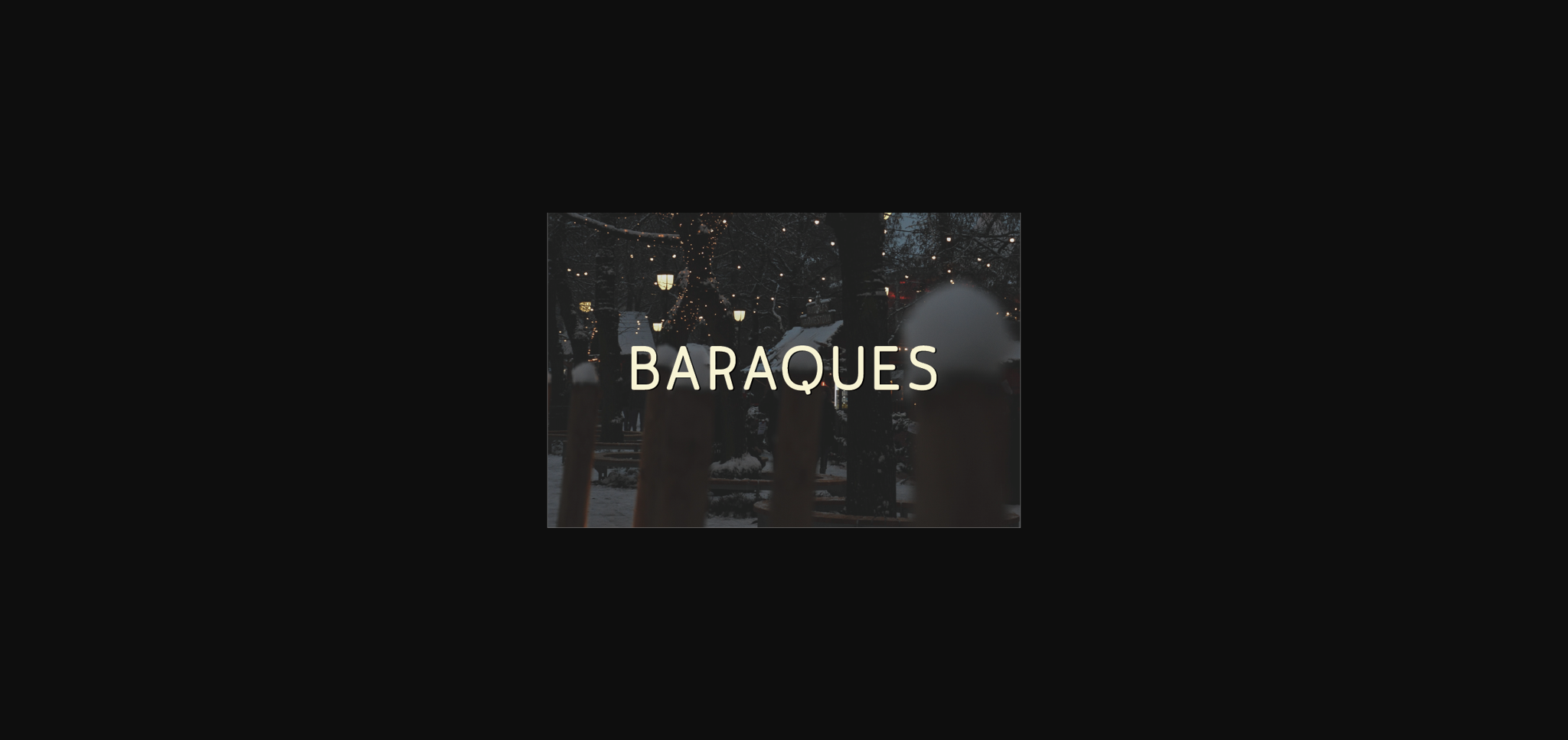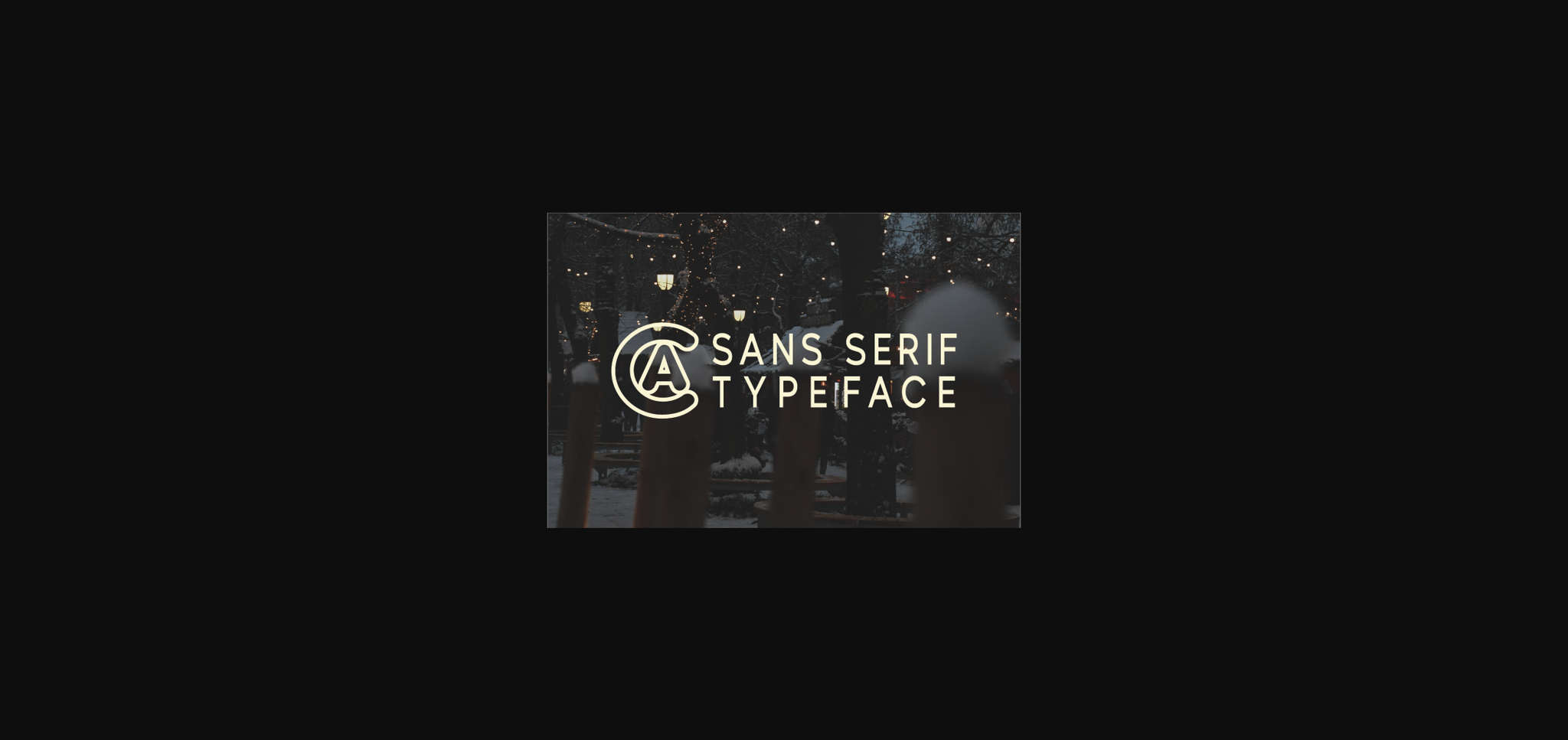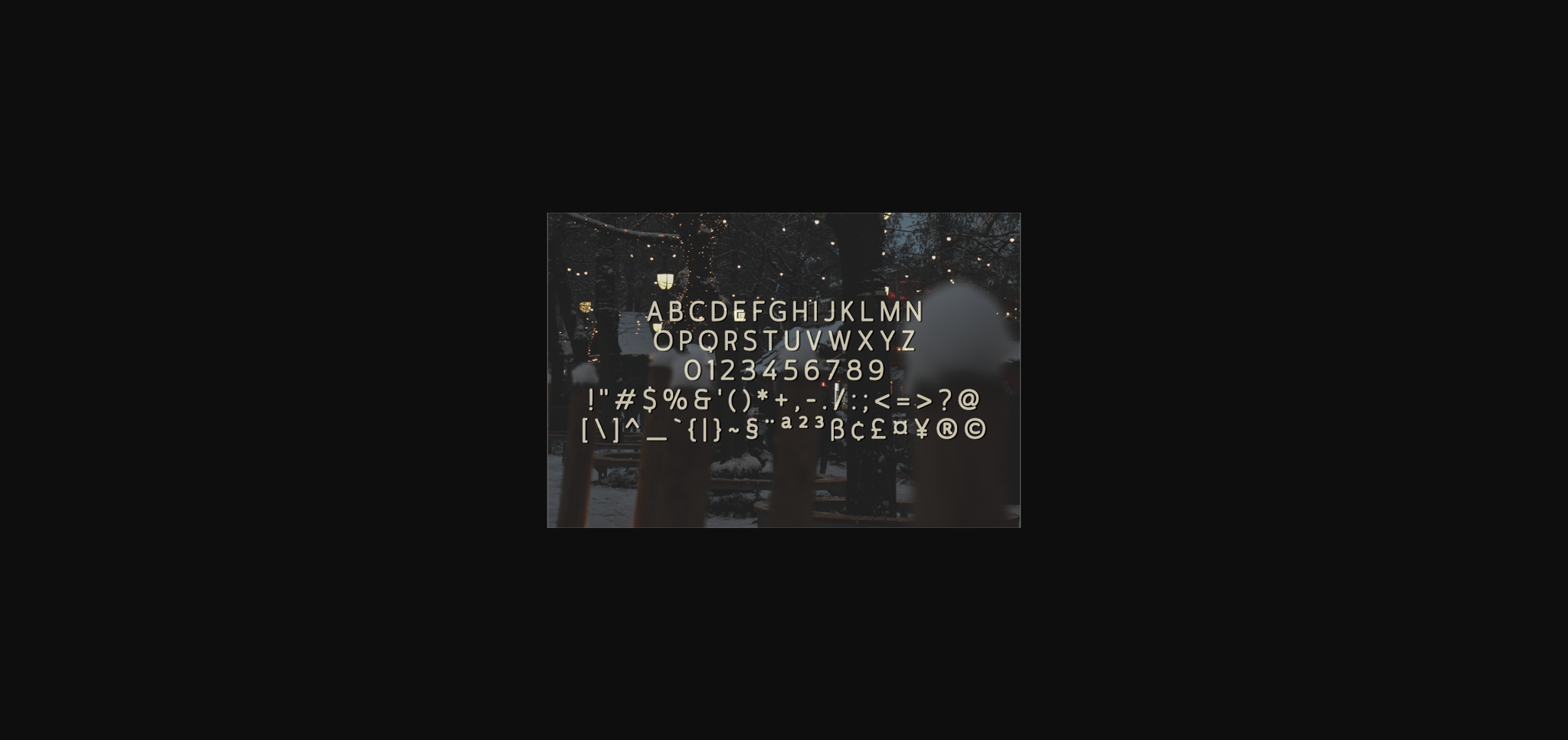
About Baraques Font
Baraques is a minimal, simple yet classy sans serif font. Suitable to a wide variety of designs due to its neat style, this font has the potential to become your favorite go-to font, no matter the occasion!